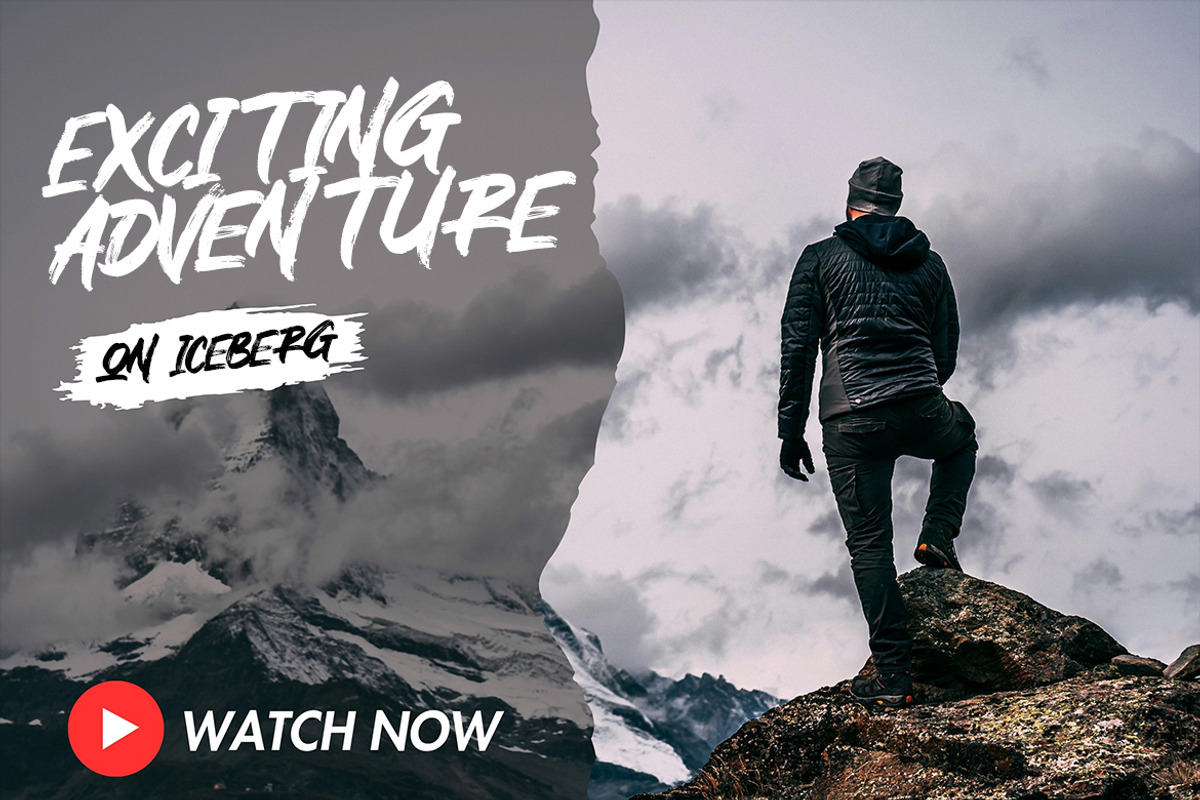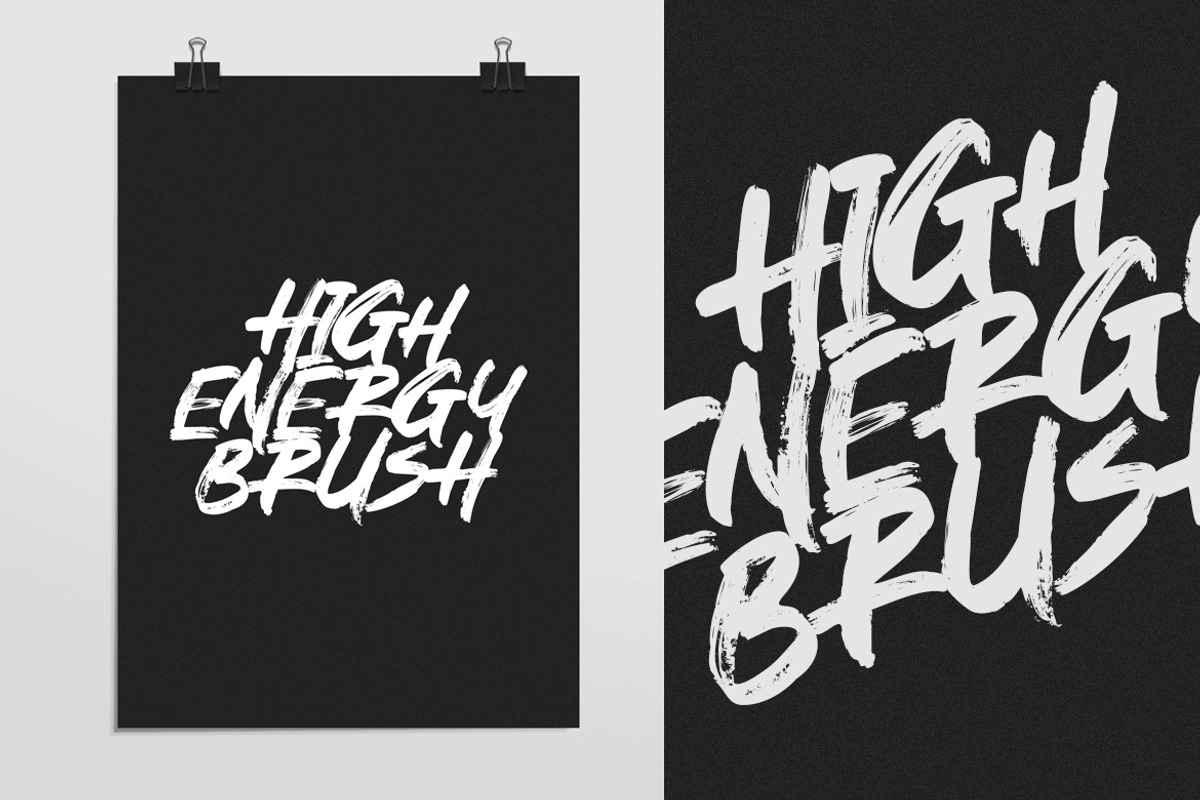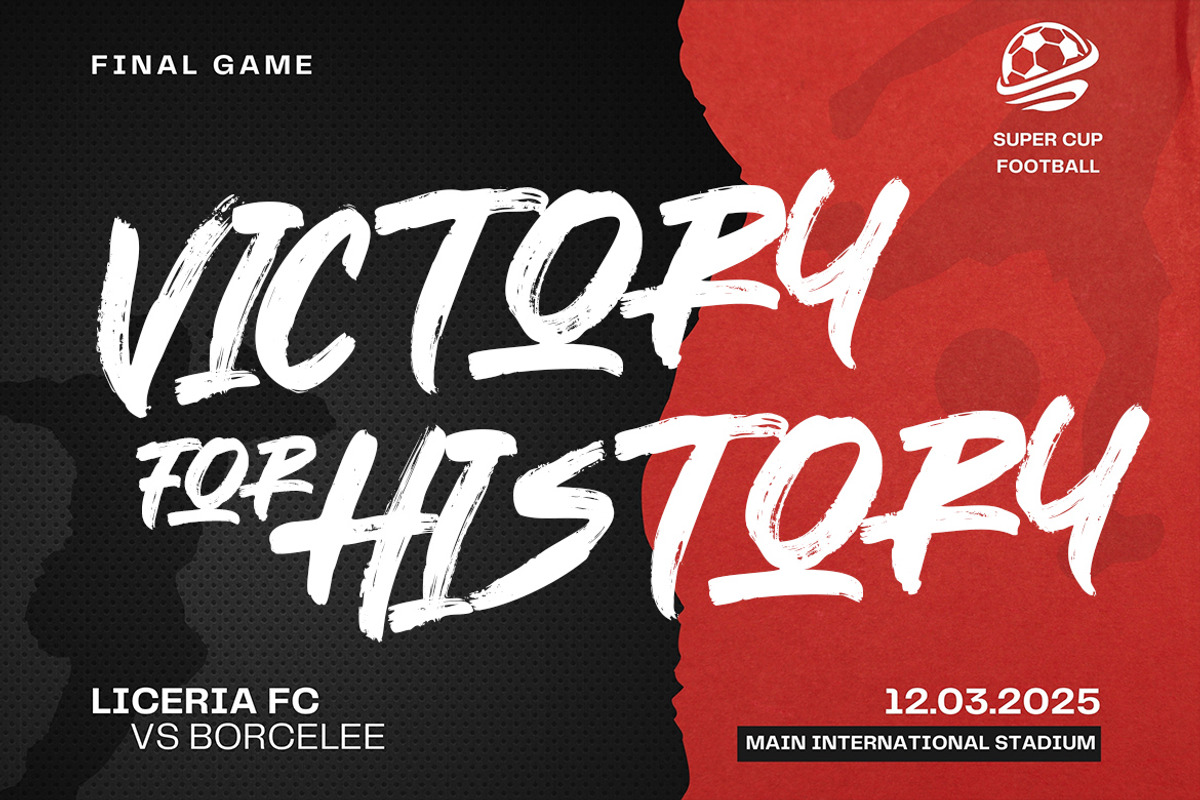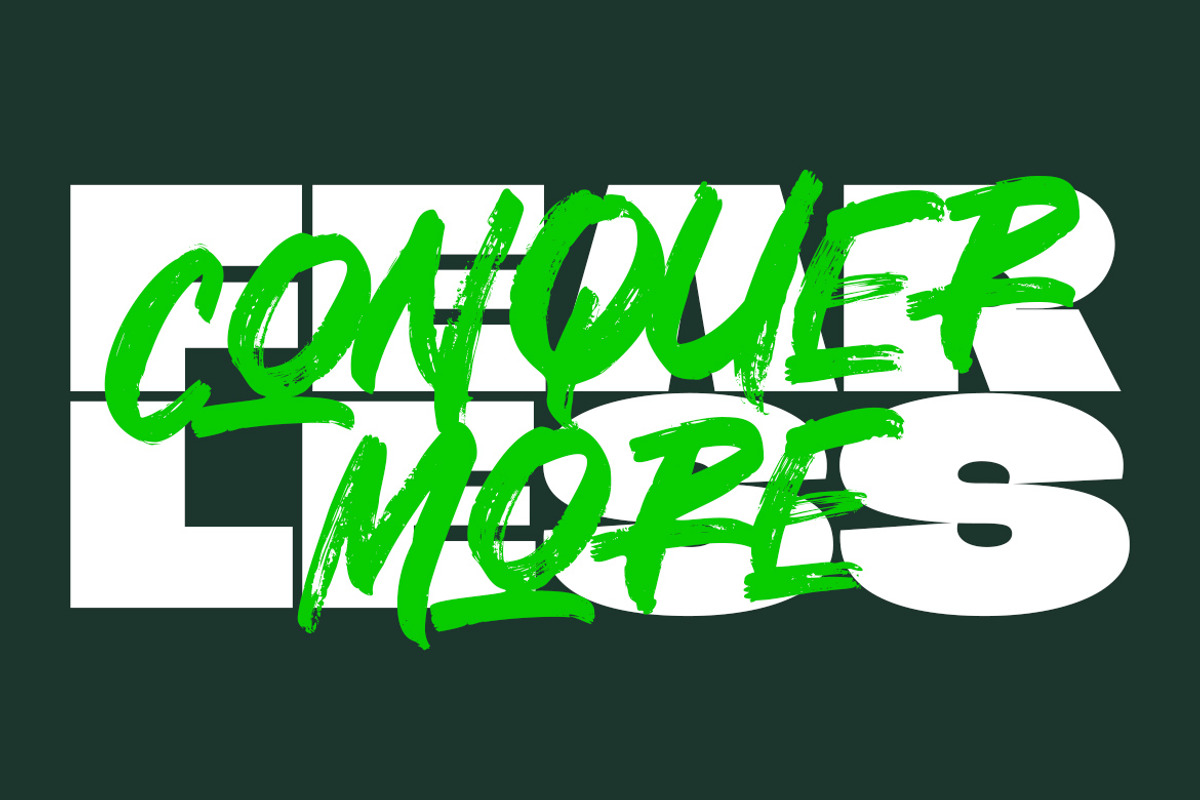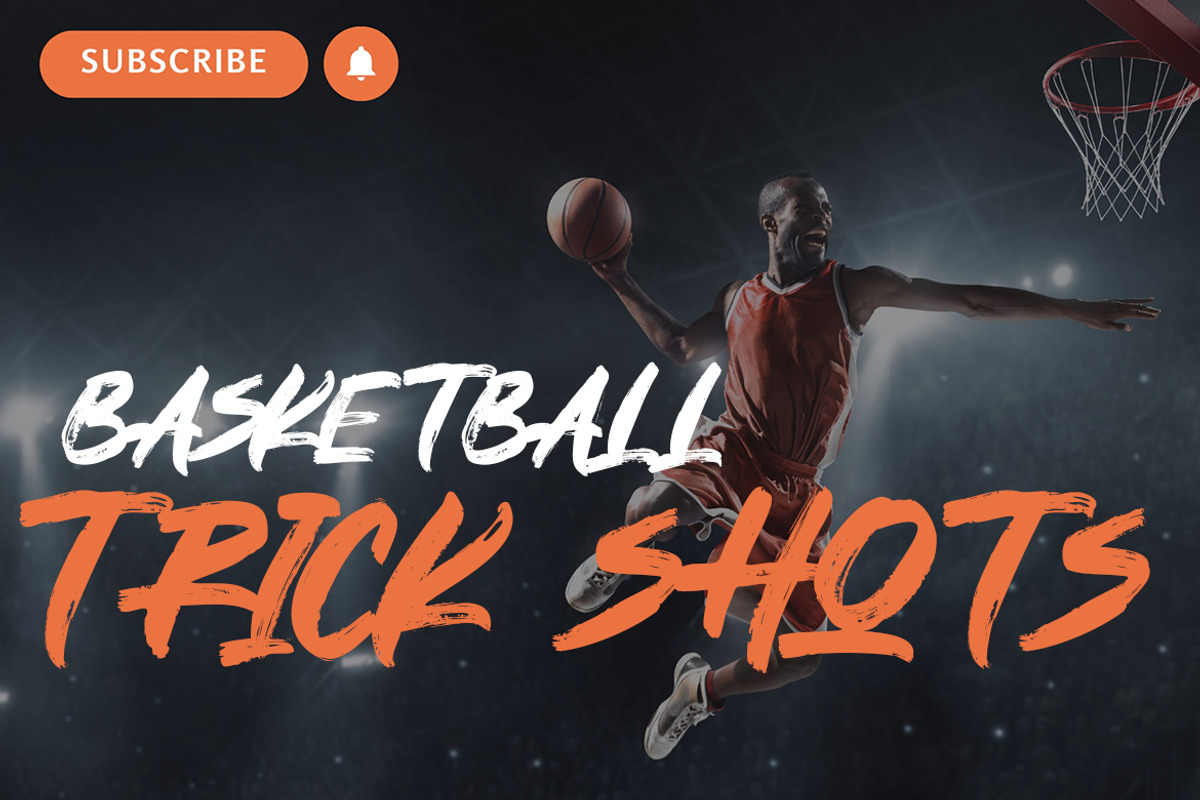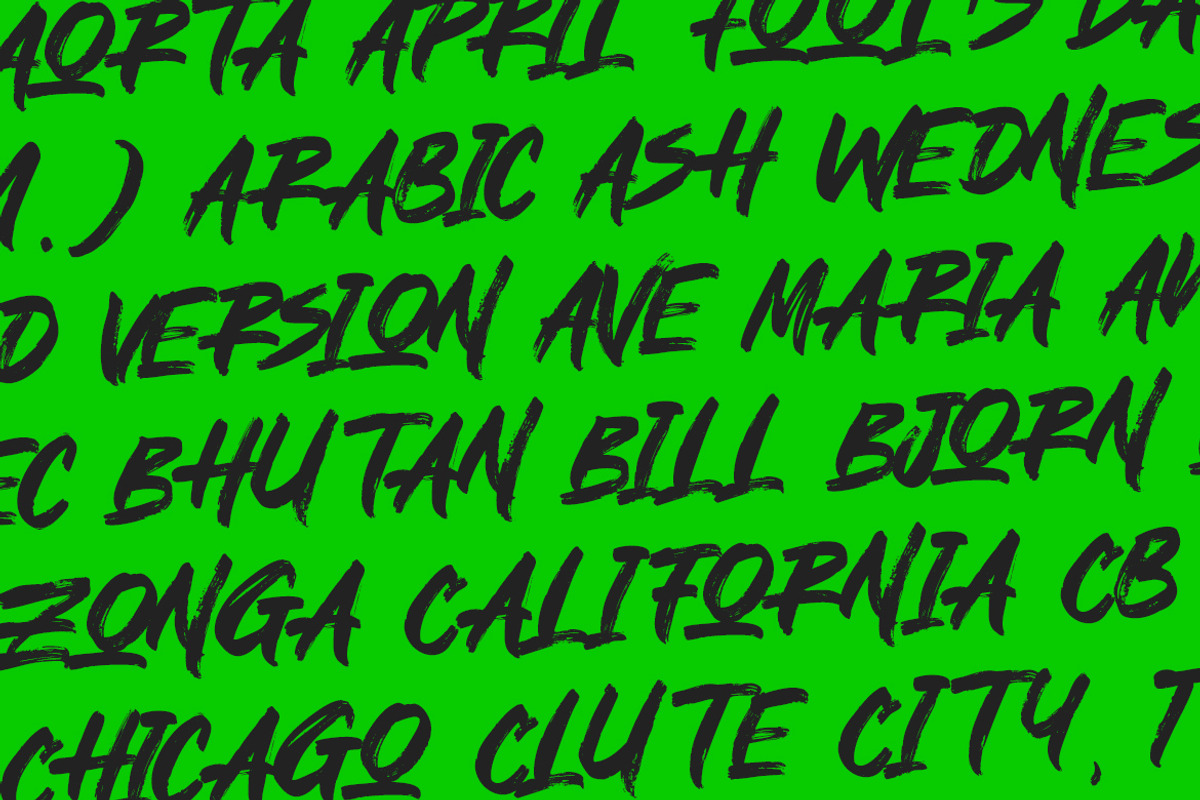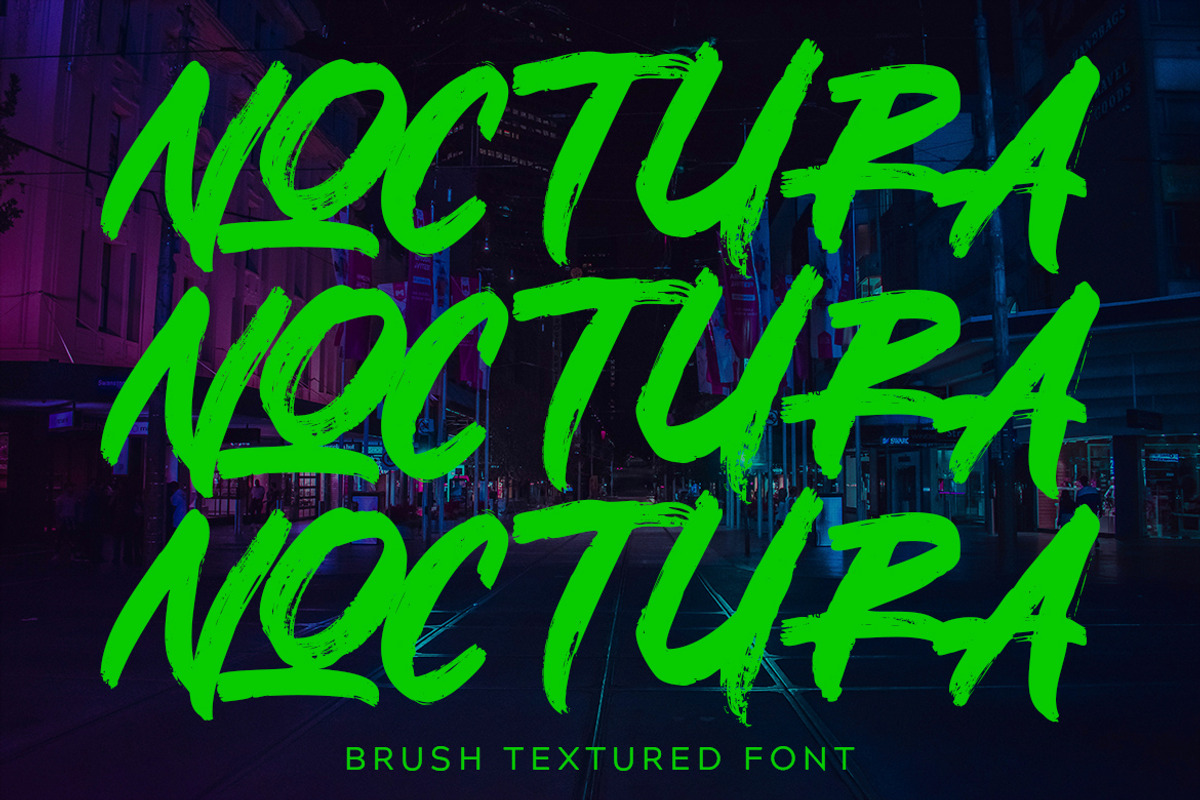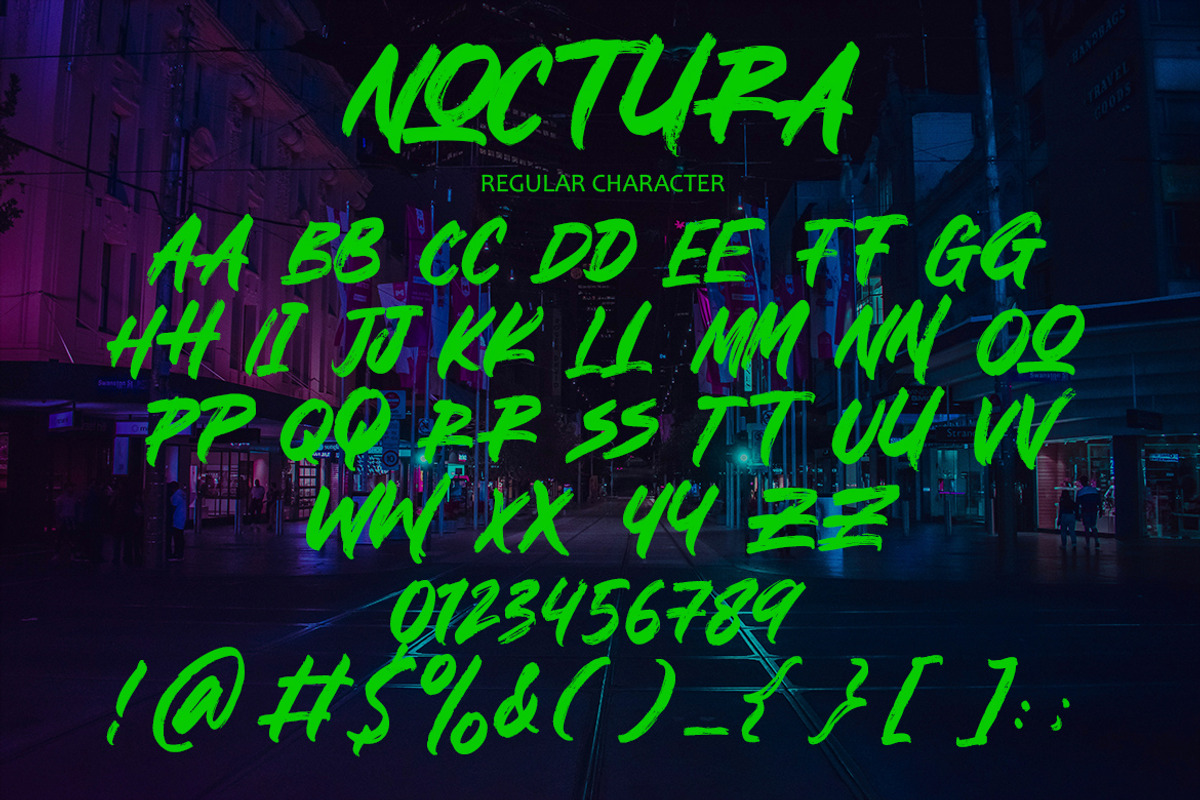
Noctura – Brush Textured Font
Noctura is a striking brush textured font designed to command attention and add fearless energy to your designs. With its bold strokes and raw, handcrafted texture, Noctura captures an urban edge that’s perfect for posters, album covers, sports branding, and digital artwork. This font embodies intensity and dynamism, making it ideal for projects that require a strong and unapologetic typographic presence. Whether you’re creating bold headlines, edgy graphics, or impactful visual statements, Noctura delivers a perfect balance of grit, style, and modern appeal.
* Uppercase Letters
* Numbers & Punctuation
* Ligature & Alternate Character
* Unique Hand-Drawn Style